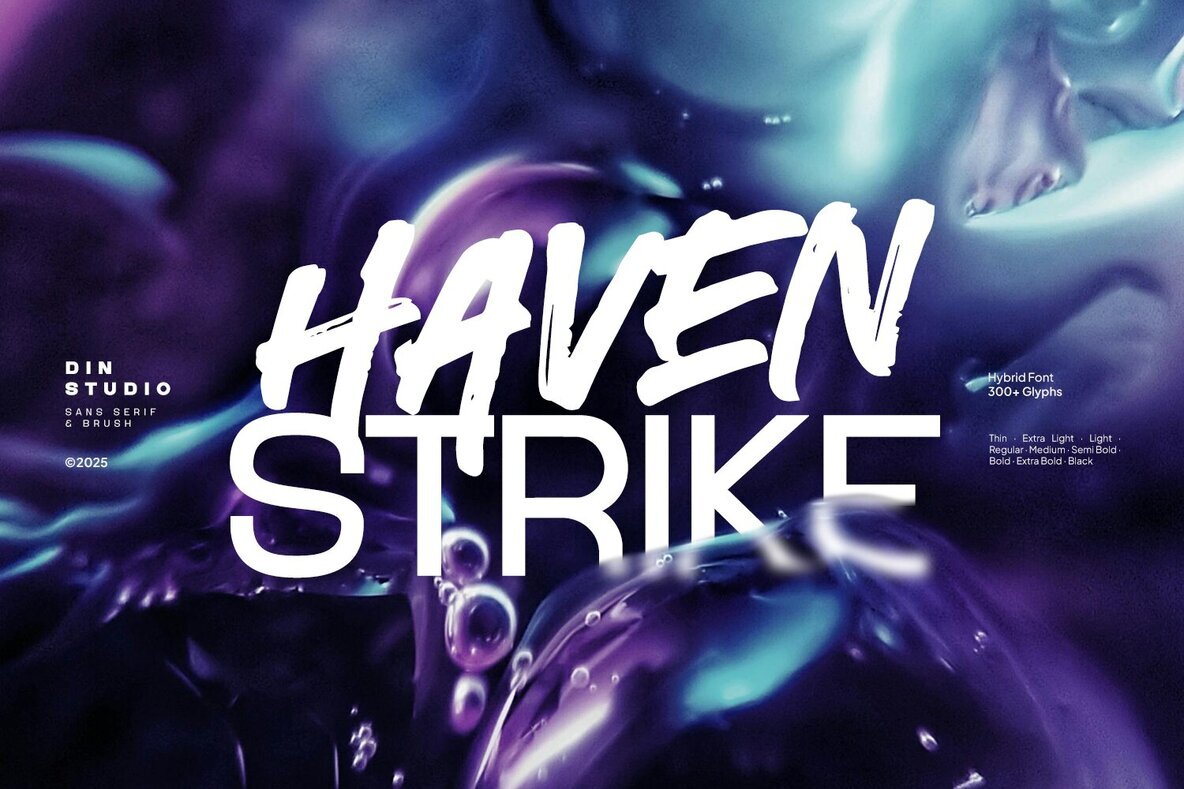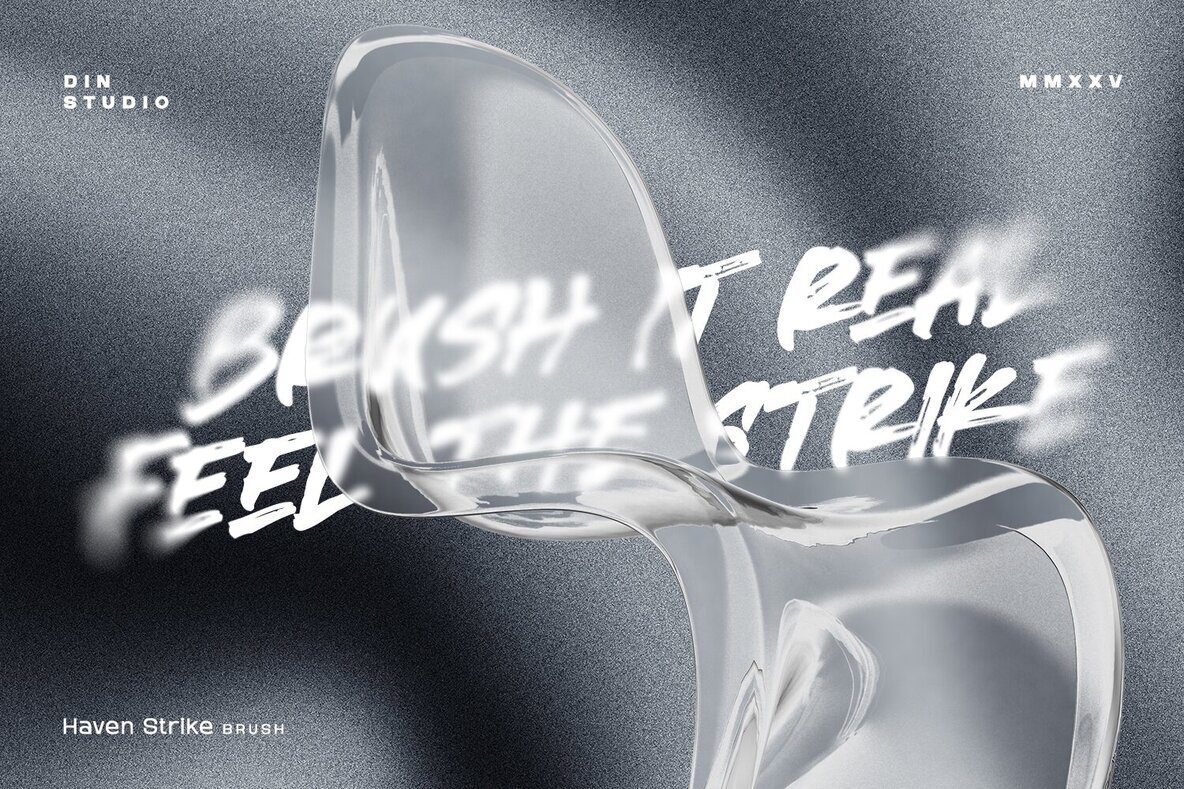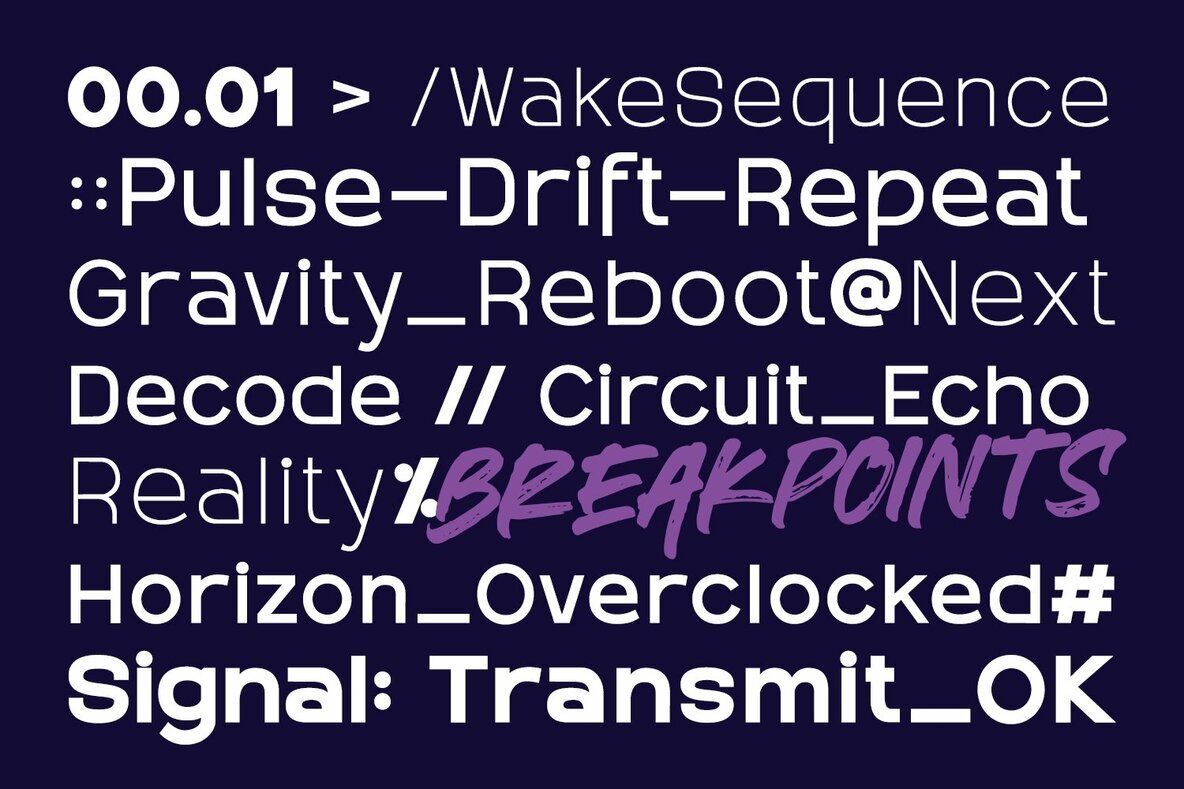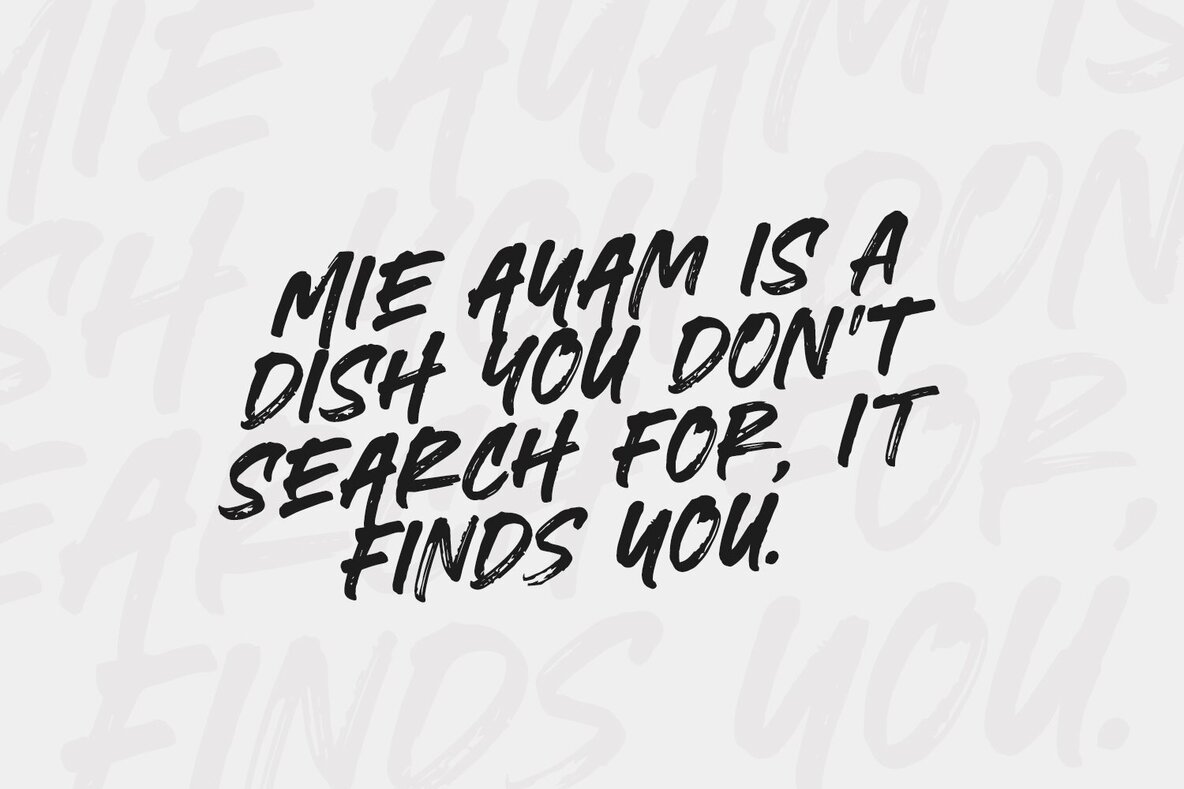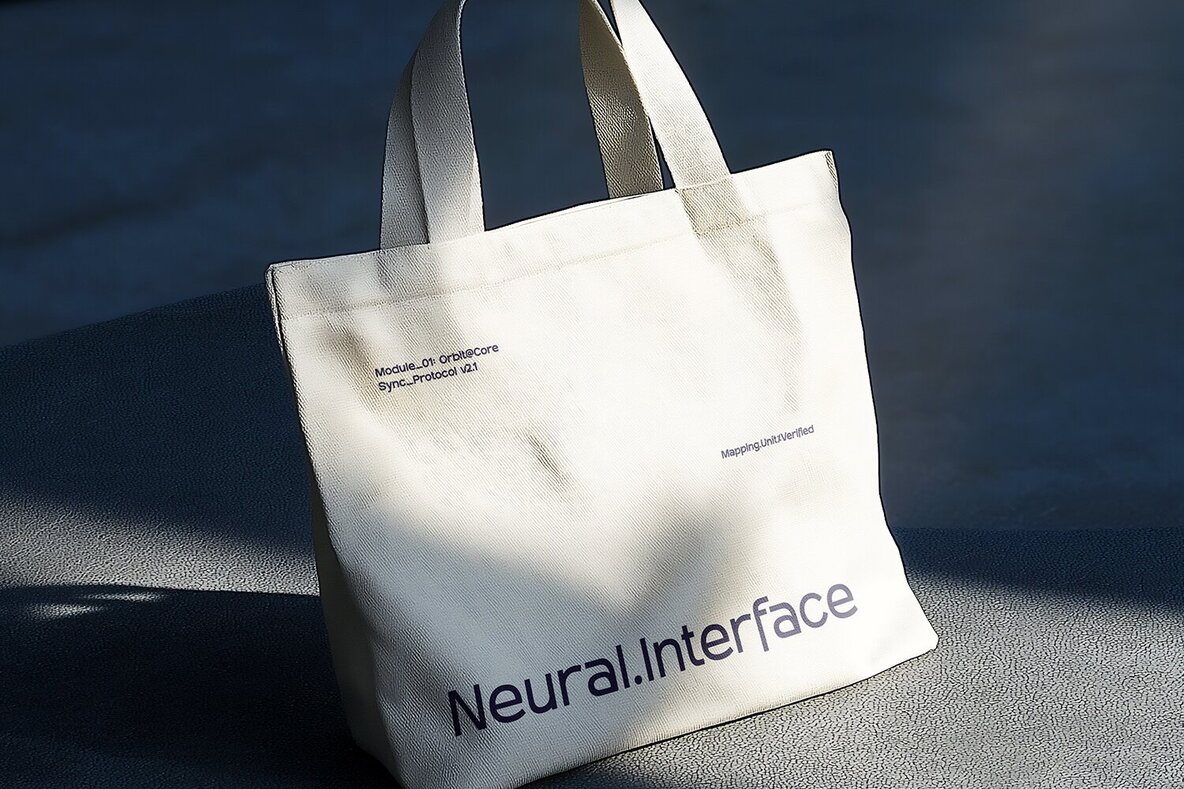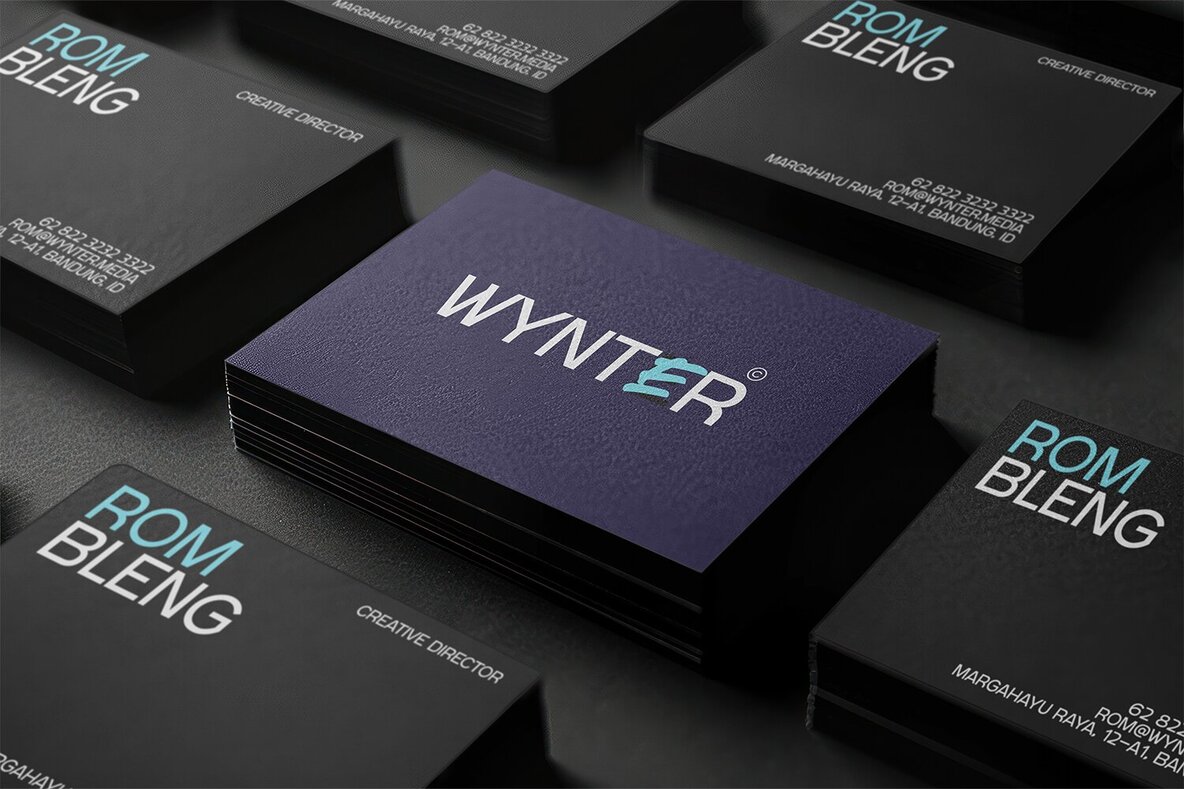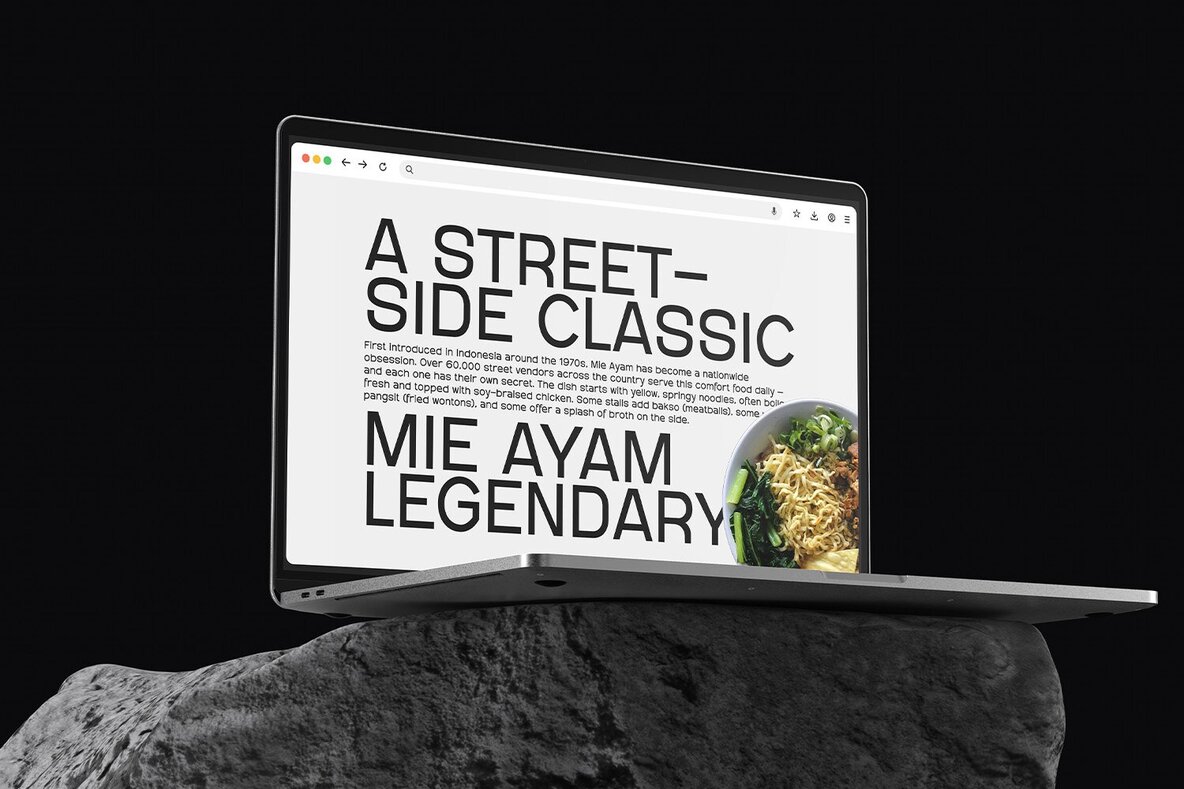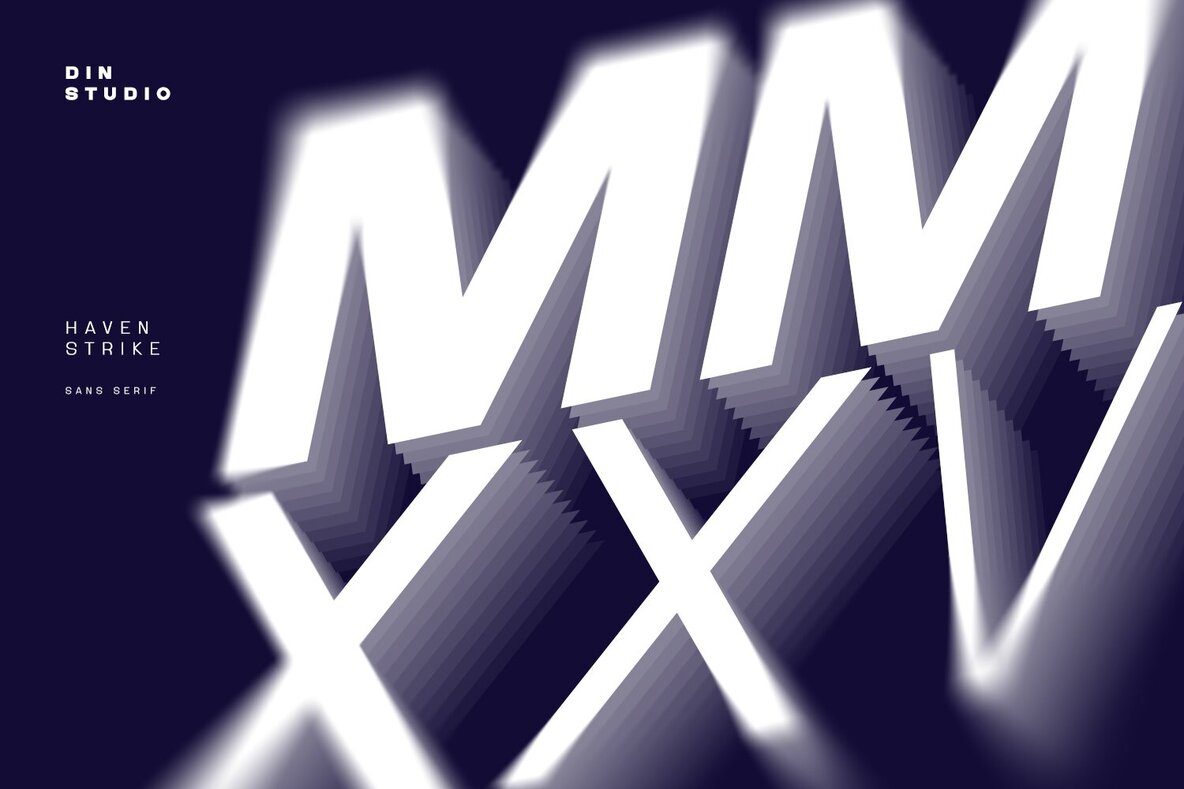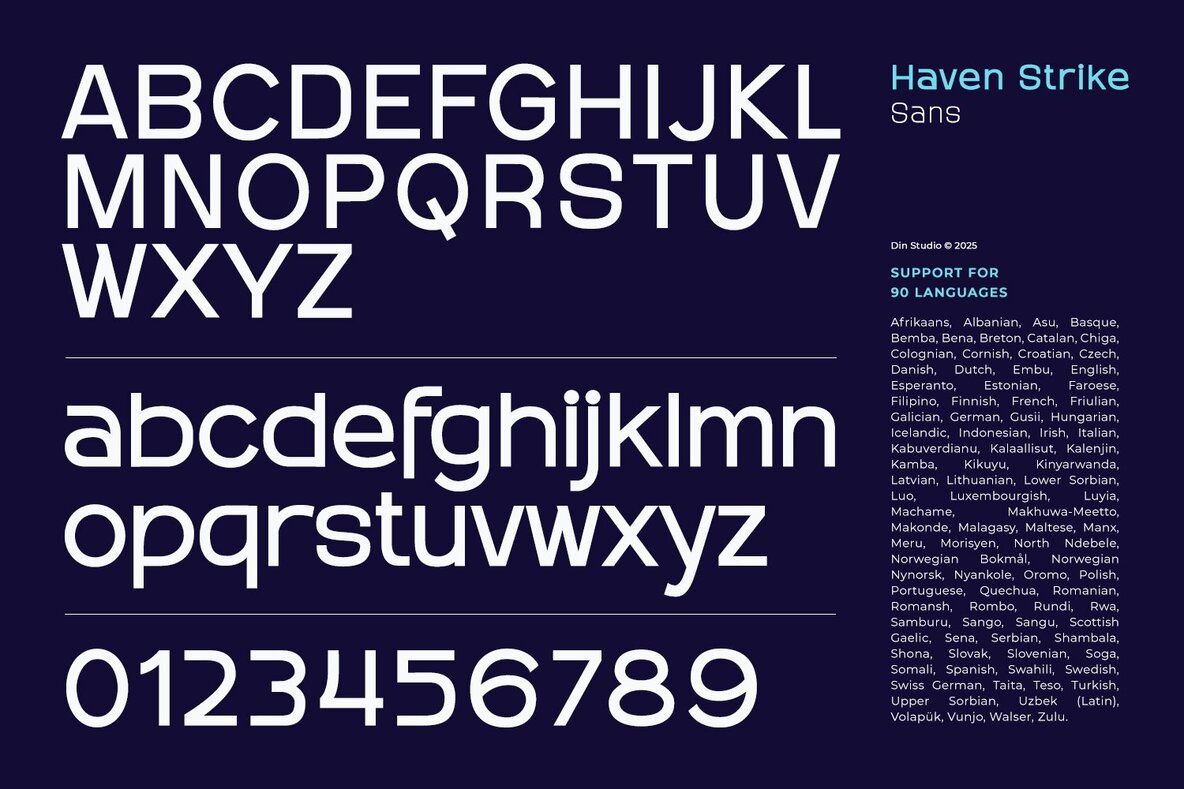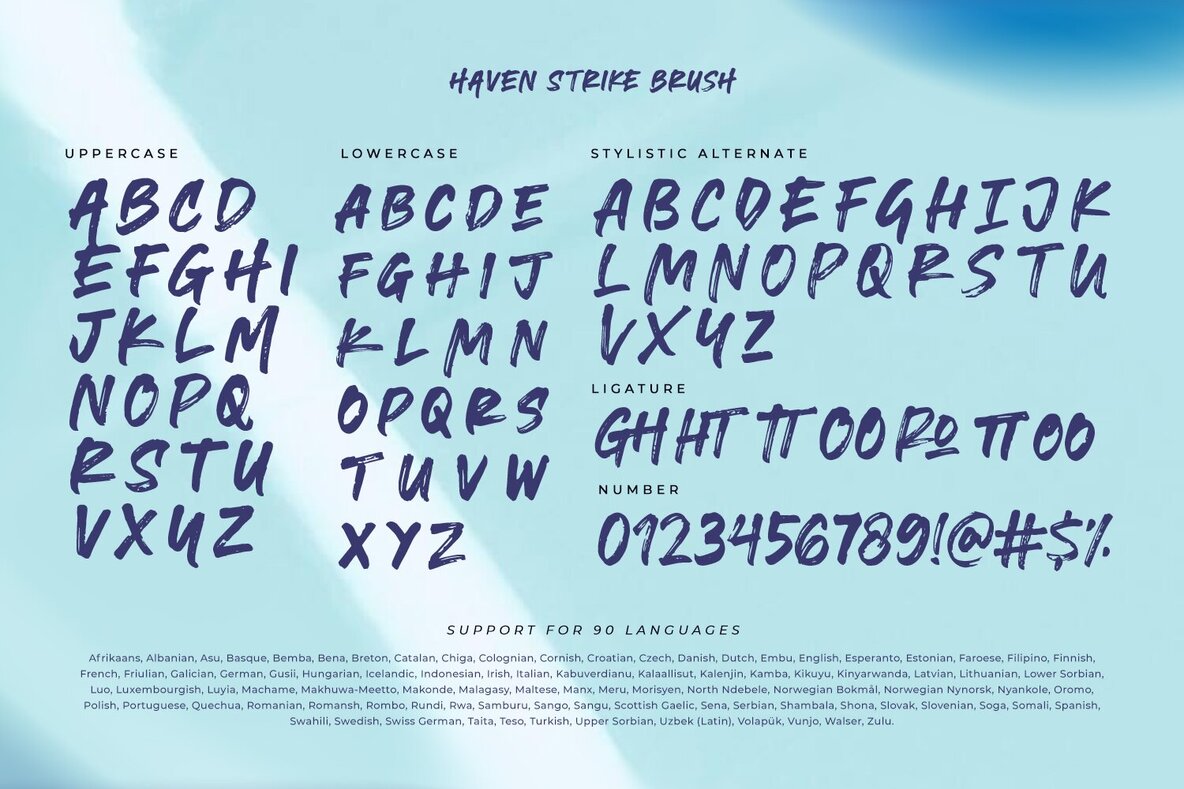
Haven Strike Font
Haven Strike is a compelling font duo that seamlessly marries expressive brushwork with precise modern typography. The bold brush font, entirely in uppercase, delivers an authentic hand-painted aesthetic through energetic strokes that highlight the power of brush lettering. Complementing this is the sleek sans serif typeface, adorned with subtle futuristic elements, creating a perfect equilibrium between organic expression and contemporary elegance. Ideal for name cards, branding, packaging, posters, headlines, and editorial designs, Haven Strike offers a versatile typographic toolkit that captivates while maintaining modern appeal. Explore the font preview to discover more creative applications.Haven Strike Font Duo